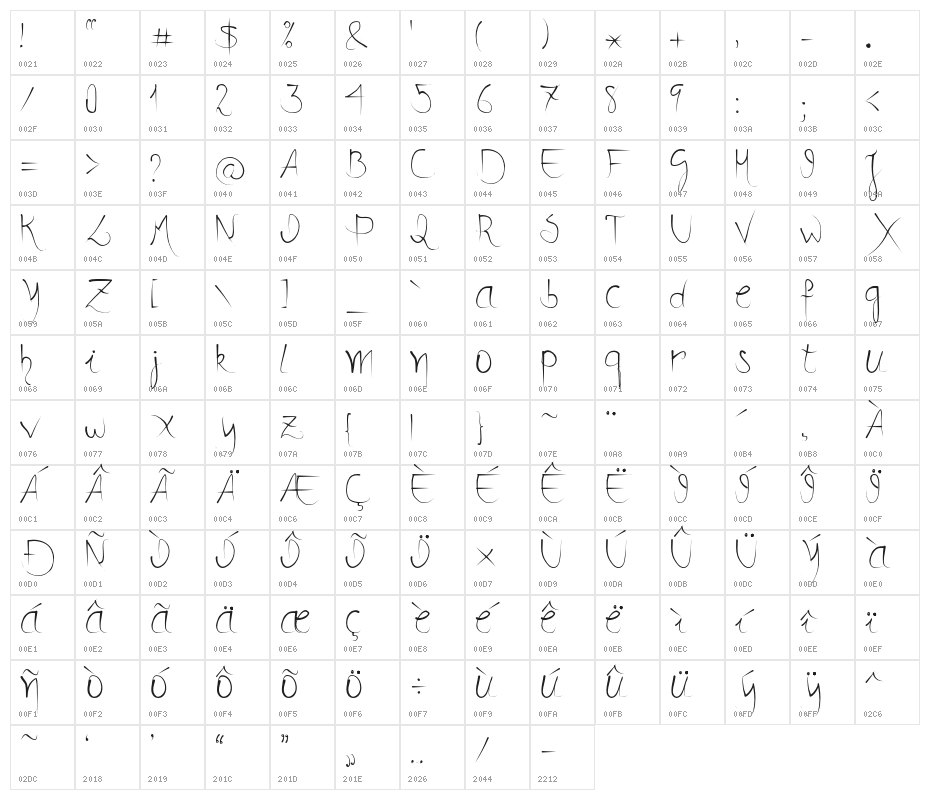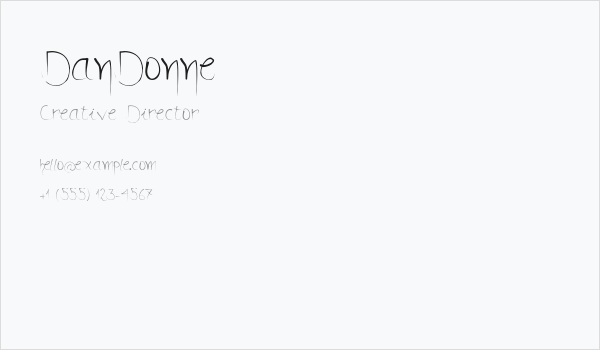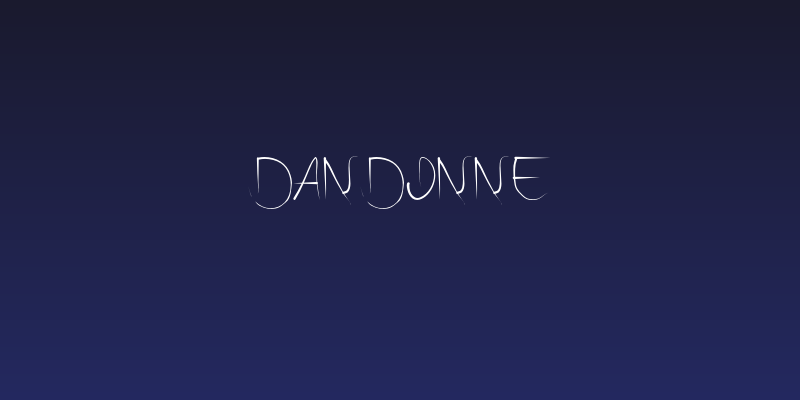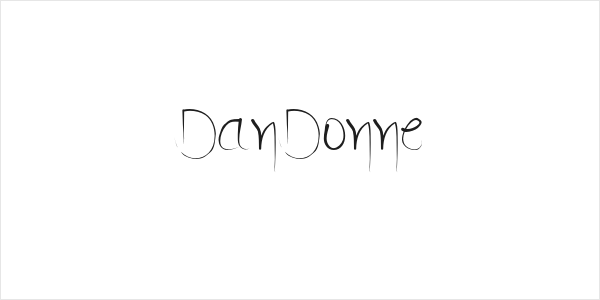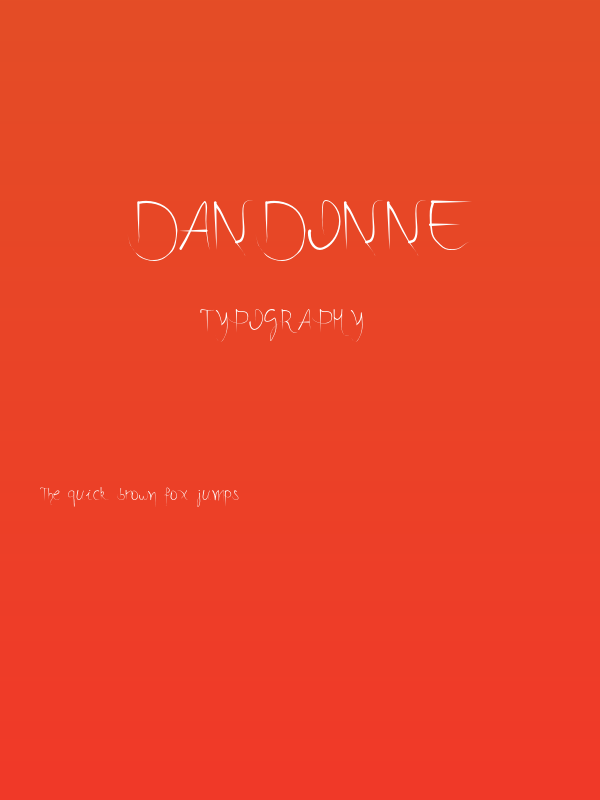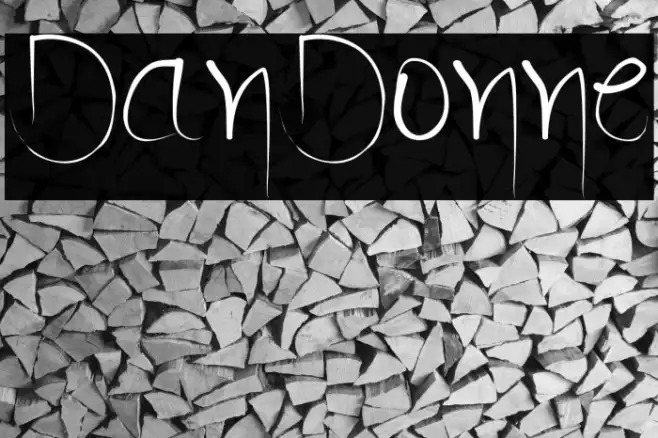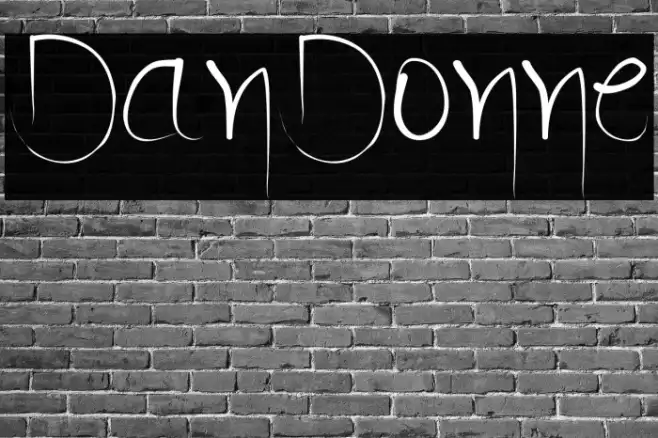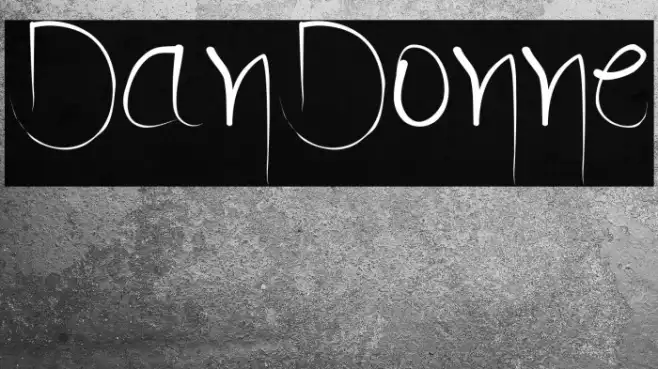
DanDonne Font
DanDonne Description
This font exhibits a unique and artistic style, characterized by its flowing, cursive-like strokes that give it a handwritten appearance. The letters are elegantly elongated with a mix of thick and thin lines, creating a dynamic and expressive look. The uppercase letters maintain a consistent height, while the lowercase letters vary in size, adding to the font's whimsical nature. The numerals are distinct, with a playful yet sophisticated design. Special characters are creatively integrated, maintaining the overall aesthetic. This font's artistic flair makes it suitable for creative and expressive projects.
| Use Case | Logos, Invitations, Artistic Projects |
| Proposed Projects | Ideal for wedding invitations, greeting cards, artistic posters, and branding materials that require a personal touch. |